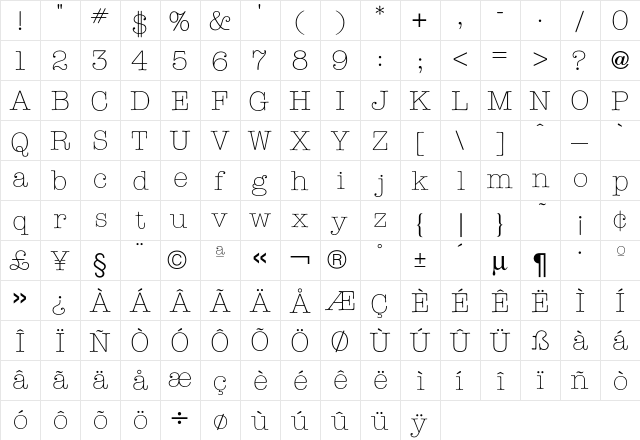
American TypeLight
Design Context for American Typeface
American offers clean, dependable letterforms without strong stylistic allegiance, making it a practical choice for designers who need flexibility. The delicate stroke weight brings airiness and refinement to layouts.
Pro Tip: Pair American with a font of contrasting weight or personality to build a more expressive typographic hierarchy.